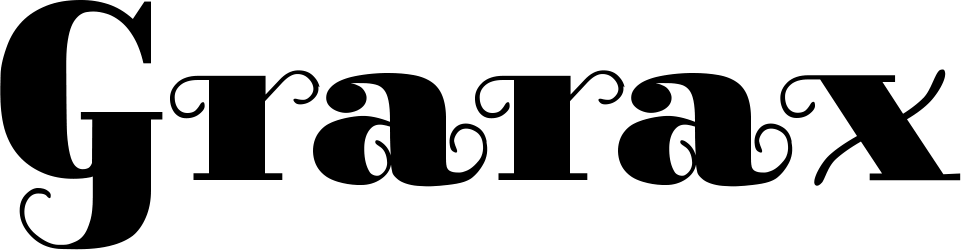
Grarax Font
Delicate and thin curly edges in a thick body are exactly what can call any attention to your graphic design like wedding invitation cards, Valentine’s Day posters, movie titles, and so on. Grarax with a vintage ornate touch desire to turn your artwork into a nice arrangement.
GRARAX
A fontremix made out of Gravitas One and Spirax, both of which are google fonts.
A school project.